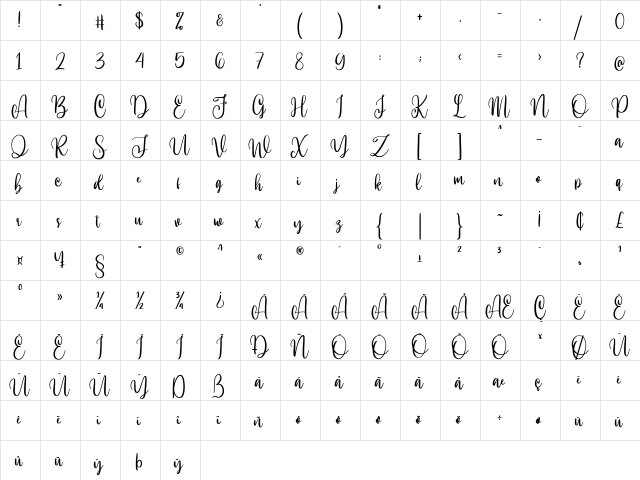
Hi Virginia Regular
| Foundry | Good Java Studio |
| Designer | Good Java Studio |
Design Context for Hi Virginia Typeface
Hi Virginia is a composed and adaptable typeface that performs quietly and consistently across a wide range of design contexts.